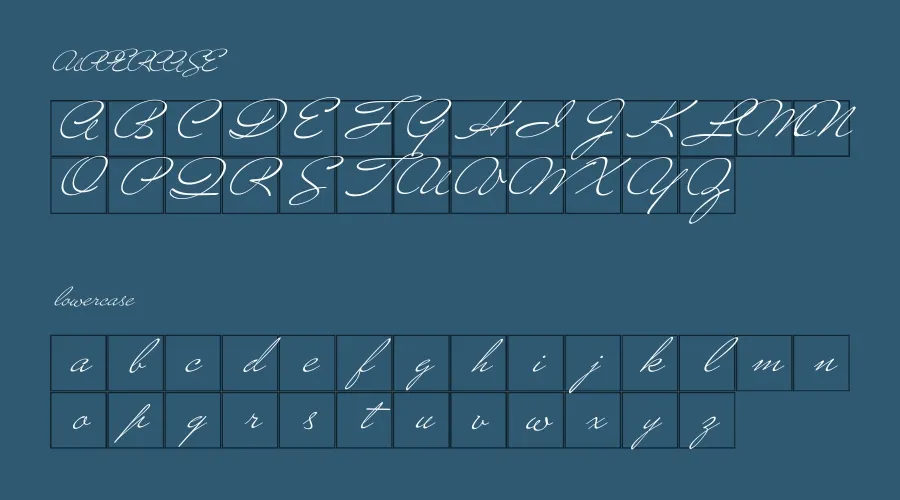
About MR Blaketon Font
Mr Blaketon Font Family is the perfect representation of the thoughtful and innovative design. This typeface was designed by the famous designer Alejandro Paul and Charles P Bluemlein. this typeface was designed with precision that can be seen in every single glyph and on each letterform. This font family contains 1 style available and published by Sudtipos.
The font's spacing has been expertly designed and optimized to ensure perfect legibility, making this typeface an ideal choice for long passages of text or as part of a larger design. Its versatility also means that it can be helpful for any project.